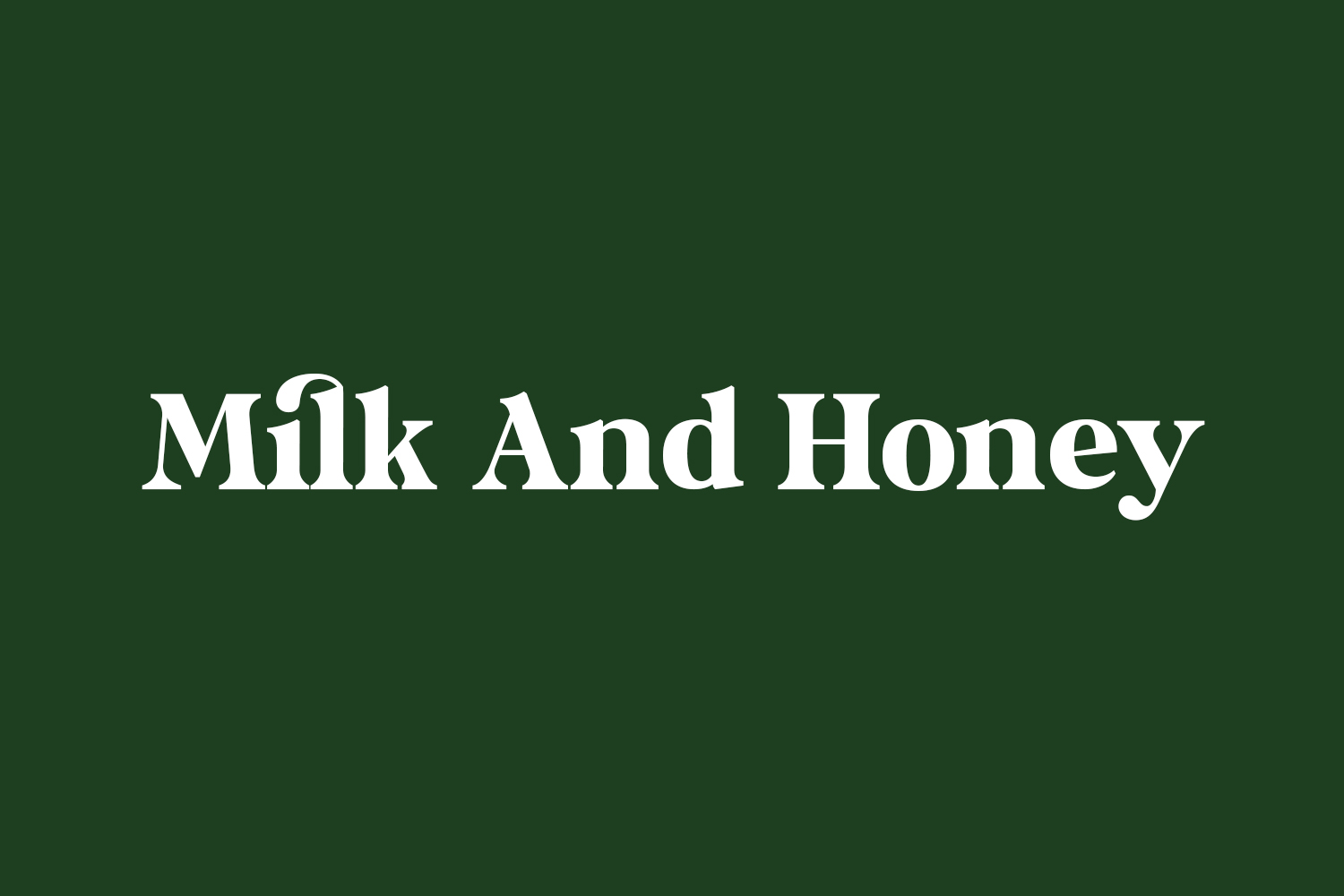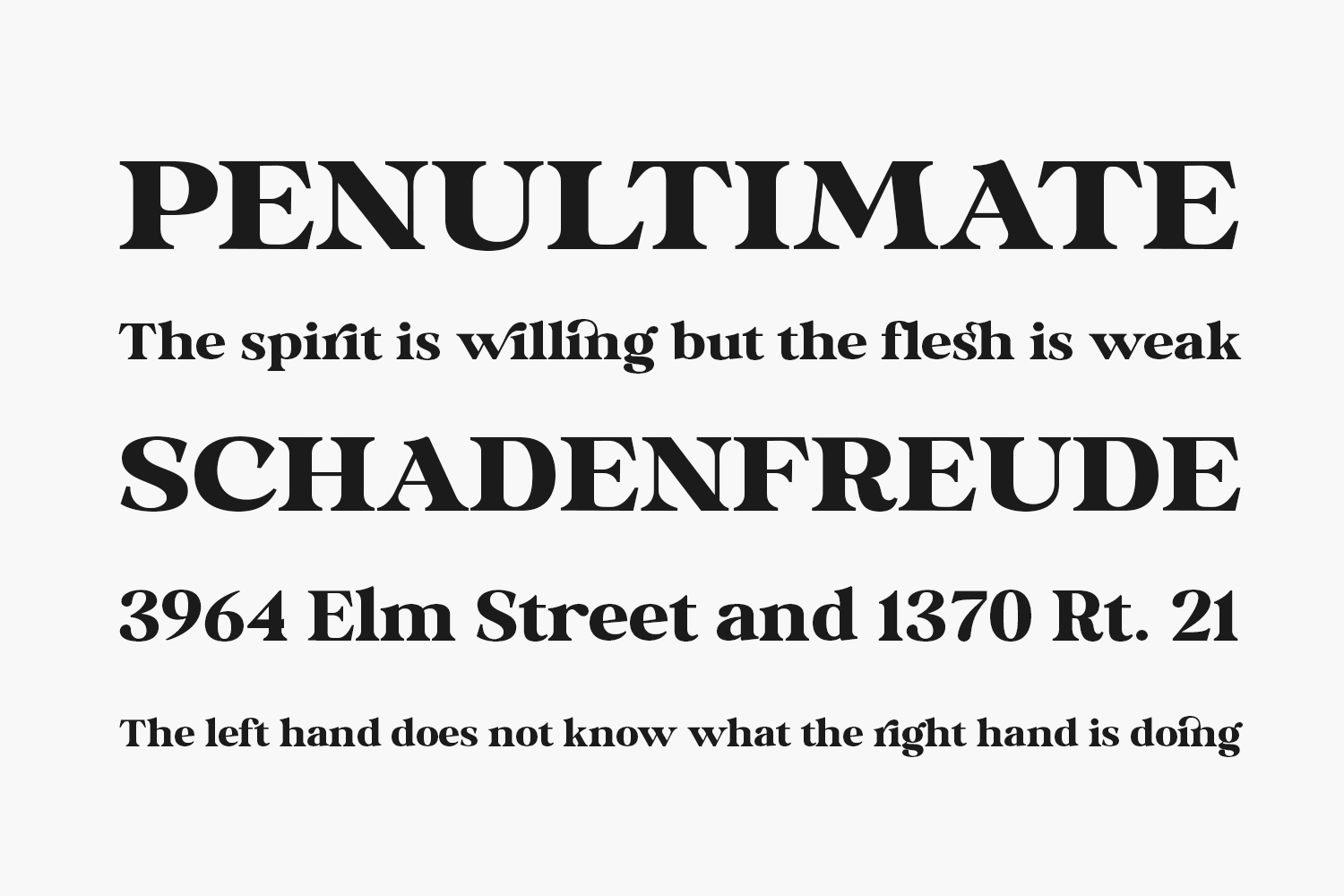
Immerse yourself in the allure of Milk And Honey Free Font, a vibrant and bold serif font featuring thick lettering that is both trendy and versatile. Fall in love with this font’s exceptional style and unleash its potential to craft sensational and eye-catching designs. Download the font for free if you need it for personal use or purchase the full version for commercial use.